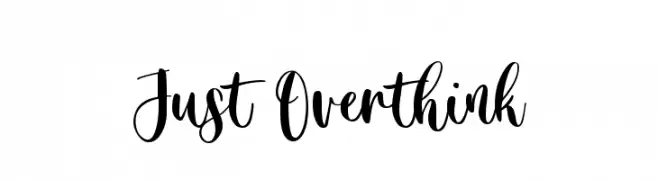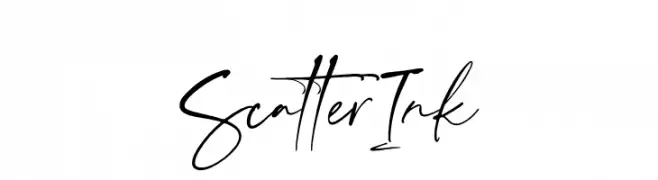
A playful and elegant cursive font with fluid, connected letterforms.
A bold, italicized font with a modern, dynamic style.
A bold, geometric font with a modern, angular design.
A lively and elegant script font with smooth, cursive letterforms.
A playful, handwritten-style font with bold, irregular characters.
A playful and elegant script font with flowing, cursive letterforms.
A dynamic and elegant script font with flowing, cursive letterforms.
A bold, playful font with rounded characters and a whimsical style.
A playful, bold, and handwritten-style font with rounded characters.
A playful, handwritten font with rounded edges and a friendly, casual style.
A playful, casual handwritten font with smooth, connected letterforms.
A bold, textured font with a grungy, hand-painted style.
A playful, hand-drawn style font with bold, rounded strokes.
A playful, hand-drawn font with bold, blob-like strokes.
A playful, cartoonish font with bold, rounded characters.
A playful, bold, and hand-drawn style font with a whimsical and energetic appearance.
A bold, dynamic font with a playful, cut-out style.
A playful, handwritten font with rounded, consistent strokes and a casual feel.
A bold, distressed font with a grunge aesthetic and rounded characters.
A bold, playful font with rounded edges and a whimsical, retro style.
A bold, geometric font with a futuristic, industrial style.
A playful, handwritten font with rounded, consistent strokes and a casual vibe.
A lively and expressive script font with fluid, dynamic strokes and a handwritten quality.
A bold, modern font with thick, blocky characters perfect for impactful headlines.
A bold, modern sans-serif font with a strong visual impact.
A bold, distressed font with a grunge aesthetic and rough texture.
A playful, bold handwritten font with rounded edges and a casual style.
A playful and elegant script font with a handwritten style.
A bold, eclectic font with a cut-out, ransom-note style.
A bold, eclectic font with a ransom note style, featuring varied patterns and orientations.
A casual, handwritten font with a playful and dynamic style.
Casual handwritten script font.
Eclectic, collage-style font with mixed textures.
Eclectic collage-style font with mixed textures.